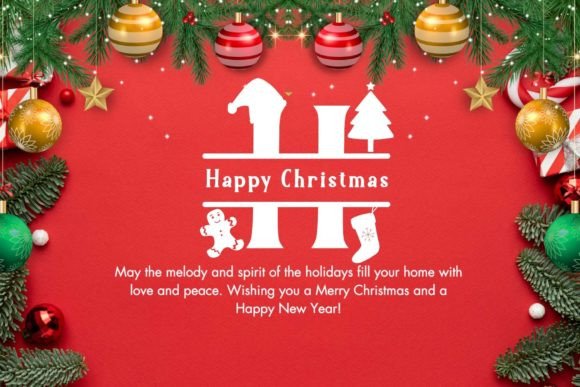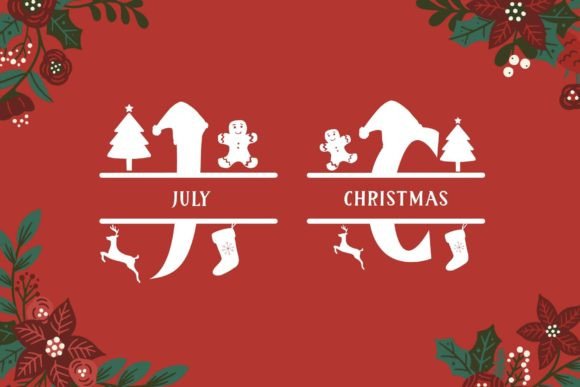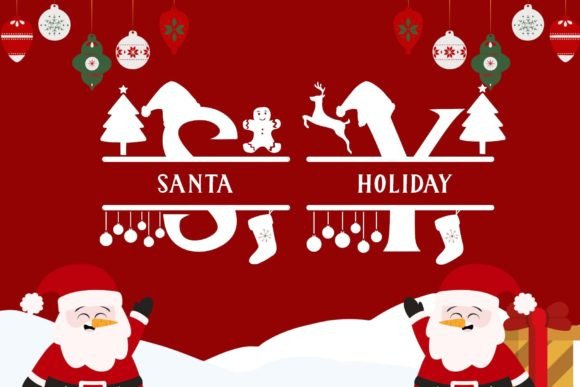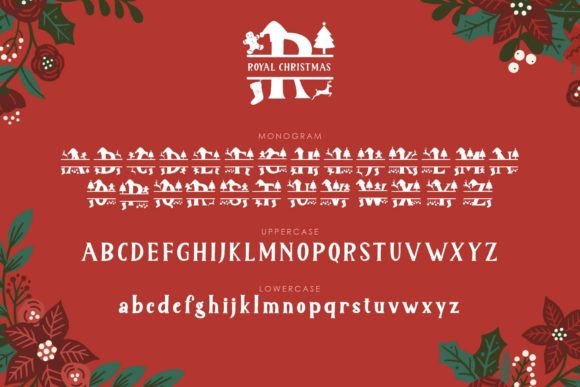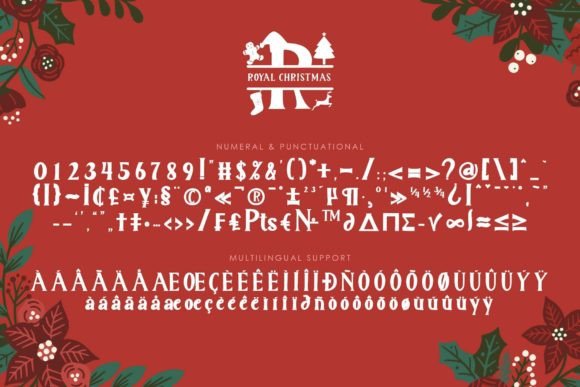
Introduction to Royal Christmas Monogram Font
As the holiday season approaches, designers everywhere start brainstorming ideas for festive and unique projects. Have you ever found yourself stuck in a creative rut, searching for that perfect font to add a touch of elegance to your Christmas invitations or seasonal branding? If so, you’re in luck! The Royal Christmas Monogram Font is here to save the day, offering a high-quality design resource that’s sure to impress.
This elegant monogram font is packed with features, including monograms, uppercase and lowercase letters, numerals, punctuations, and even multilingual support. Whether you’re working on a Christmas-themed project, a summer celebration, or a simple logo, the Royal Christmas Monogram Font is a valuable asset for any designer. Plus, with a transparent background, you can easily integrate it into your creative project without any distractions.
Key Features of Royal Christmas Monogram Font
- Unique Royal Christmas design, perfect for holiday-themed projects and creative ideas
- High-quality font, ideal for a design resource that requires a professional touch
- Includes a transparent background, allowing for seamless integration into various design elements
Honest Review: Royal Christmas Monogram Font
Here are some things that work well with this font: ✨
- Unique and elegant design that’s perfect for holiday projects
- High-quality vectors that can be easily resized without losing quality
- Transparent background makes it easy to use with any background image or color
However, there are a few limitations to keep in mind: ⚠️
- Only available in a limited number of font styles (e.g. bold, regular, etc.)
- Not suitable for long blocks of text (due to its decorative nature)
Overall, I’m really impressed with the Royal Christmas Monogram Font. It’s a great design resource for any creative project, and its free download makes it an even more attractive option. With a little creativity, this font can add a touch of elegance to even the most basic designs.
How to Use Royal Christmas Monogram Font
The Royal Christmas Monogram Font is a high-quality design resource perfect for adding a touch of elegance to your creative project. This free download features a transparent background, making it easy to integrate into your design.
Use the Royal Christmas Monogram Font to create a cohesive look for your holiday cards, invitations, or social media graphics. Experiment with different colors and backgrounds to match your brand’s style.
This font is perfect for:
– Holiday cards and invitations
– Social media graphics and posts
– Branding and marketing materials
Q: Can I customize the Royal Christmas Monogram Font to fit my design needs?
Yes, you can customize the Royal Christmas Monogram Font to fit your design needs. The font is designed to be highly versatile, and you can easily adjust the size, color, and style to match your project’s requirements. Additionally, the transparent background makes it easy to combine with other design elements and create unique visual effects.